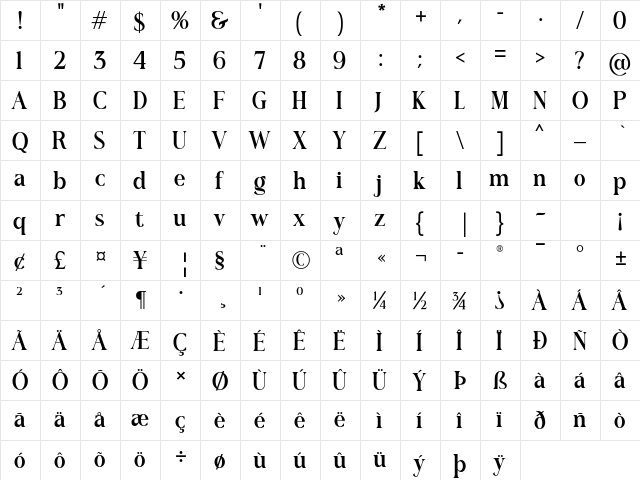
Romerio Regular
| Designer | Rivo Dwi Adriansyah |
Design Context for Romerio Typeface
Romerio takes a measured approach to typography — its balanced proportions and neutral character make it a reliable workhorse for both digital and print work.